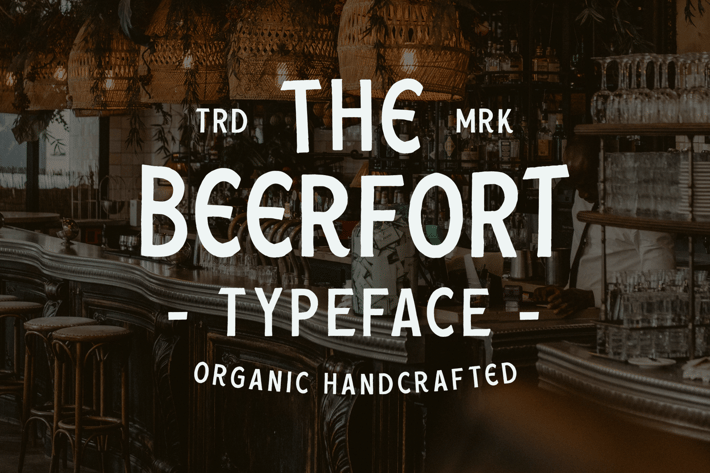
Beerfort font duo (8 Font Total)
INTRODUCING the Beerfort font that inspired by vintage tradition and aesthetic old things. This font is suitable for logo, labels, packaging, poster, t-shirt and many more application.
Come with Alternates can be matched with your letters and embellish your design.